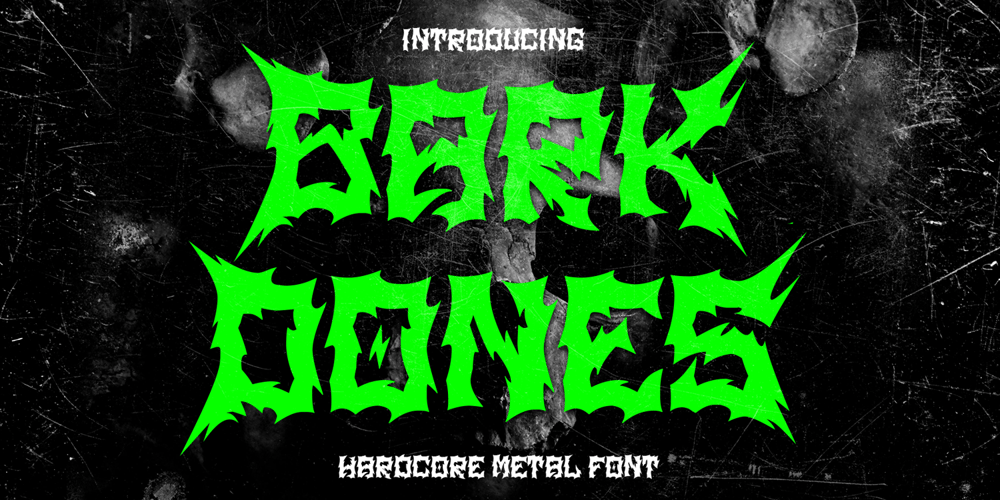
Bark Dones Font Family was designed by Zamjump and published by Zamjump. Bark Dones contains 1 styles and family package options. Bark Dones is a powerful and visually stunning font that reflects the sharpness, ferocity and horror of your soul. Bark Dones is ideal for use in various projects, from logo design, music, events, branding to web design and other printed materials. With its bold and impressive appearance, Bark Dones is the perfect choice for your work.